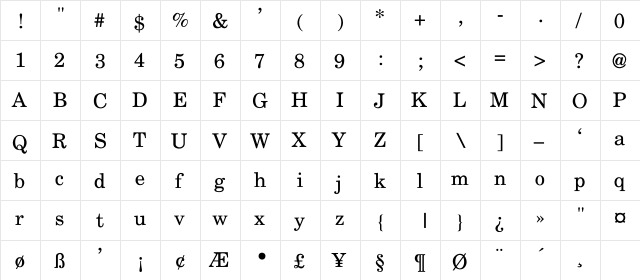
Millennia-Light Regular Light
Design Context for Millennia-Light Typeface
Millennia-Light offers clean, dependable letterforms without strong stylistic allegiance, making it a practical choice for designers who need flexibility. The delicate stroke weight brings airiness and refinement to layouts.
Pro Tip: Pair Millennia-Light with a font of contrasting weight or personality to build a more expressive typographic hierarchy.